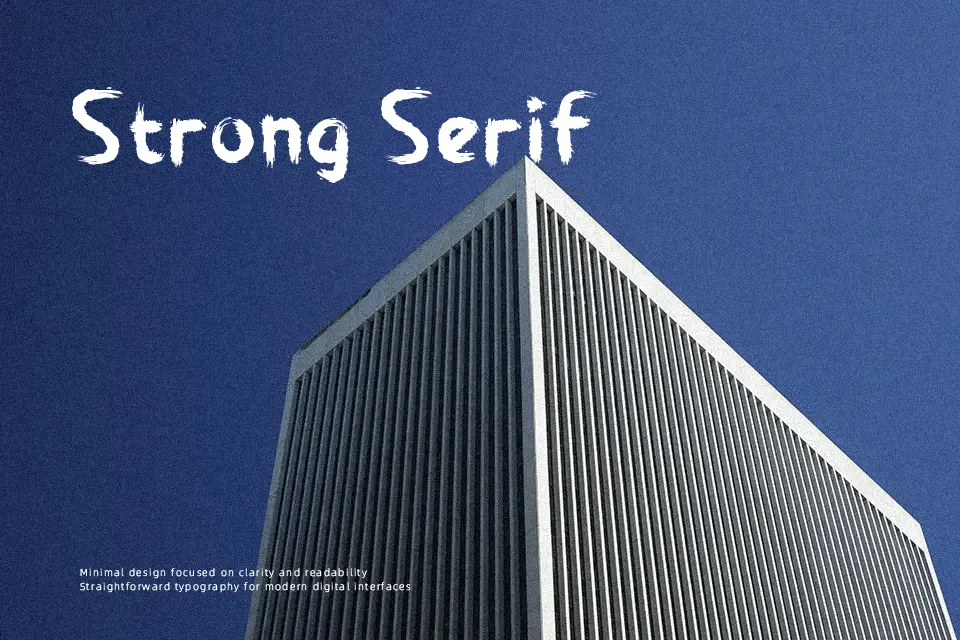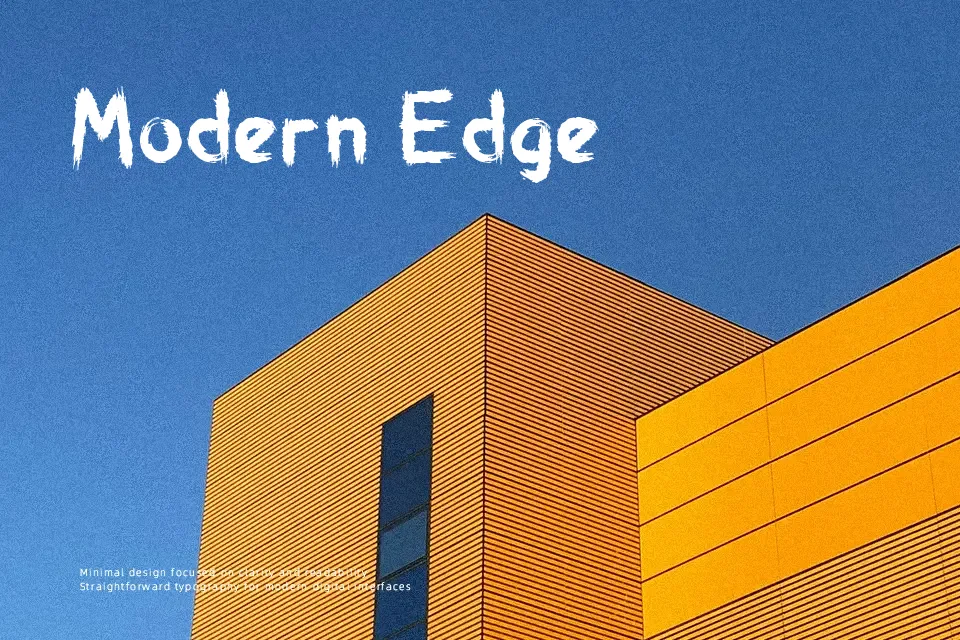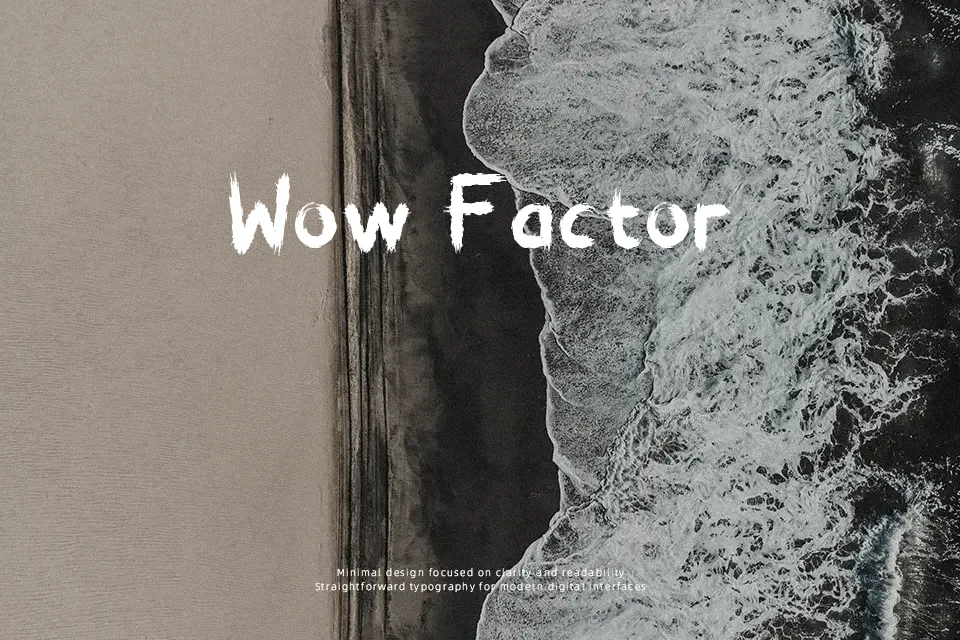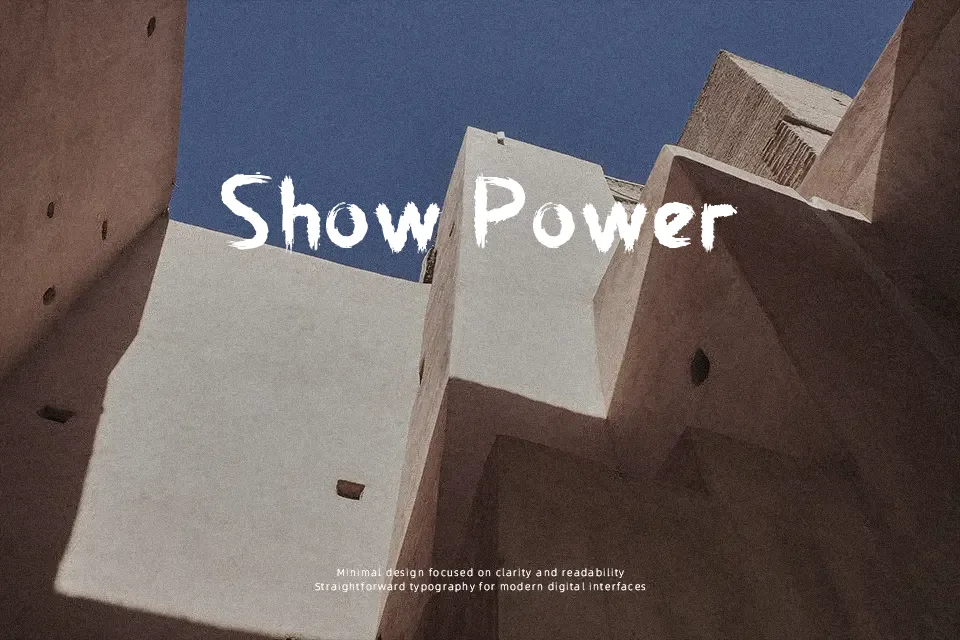
Brushstroke Horror Font
Brushstroke Horror Font is an aggressive, atmospheric display typeface that captures the unpredictable, chaotic energy of a rushed paint job. Its erratic strokes, heavy visual weight, and uneven structural edges produce a raw, unsettling aesthetic that commands immediate attention. This distressed style brings genuine tension to a layout, functioning beautifully for sinister film posters, dark video game interfaces, and impactful Halloween promotional graphics.
While the font excels at setting a terrifying and dramatic mood, its heavily textured and distorted nature significantly reduces legibility at smaller scales. As a result, it falls short when applied to detailed text blocks, formal event invitations, or crisp minimalist branding where maximum clarity is an absolute requirement.
– Developing large-scale event banners with a sinister theme
– Designing bold typography for horror novel covers
– Establishing a gritty aesthetic in streetwear apparel
– Formulating intense title sequences for thriller videos
– Formatting detailed body copy or instructional text
– Establishing trustworthy and clean corporate branding
– Delivering subtle and elegant UI design elements
Perfect for film, gaming, and halloween, with a artistic and brush style.